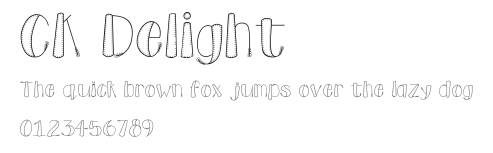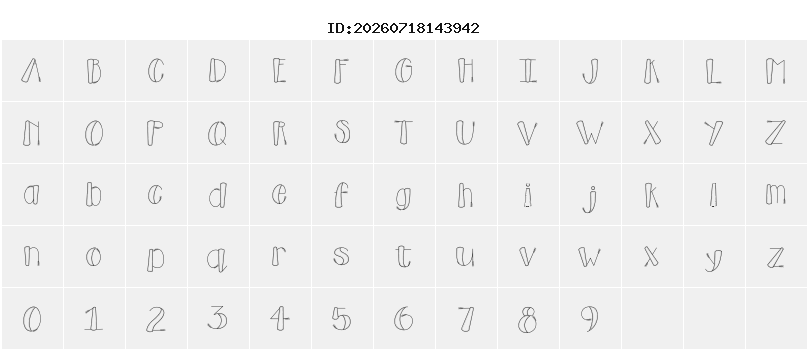
CK Delight Preview
About CK Delight.ttf
CK Delight.ttf is a modern, elegant sans-serif font designed for ultimate readability and visual harmony. Perfect for branding, headlines, web design, and print materials.